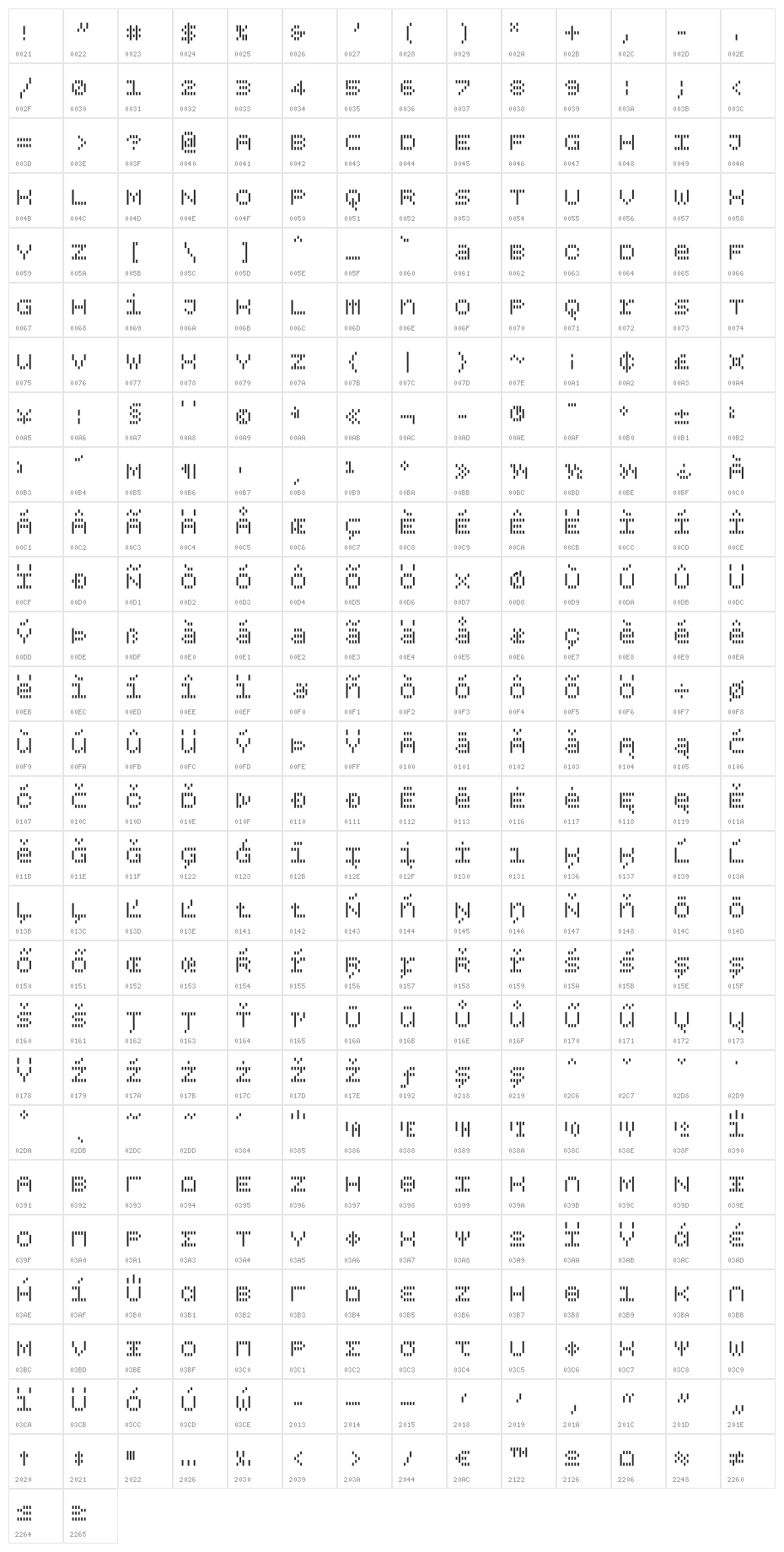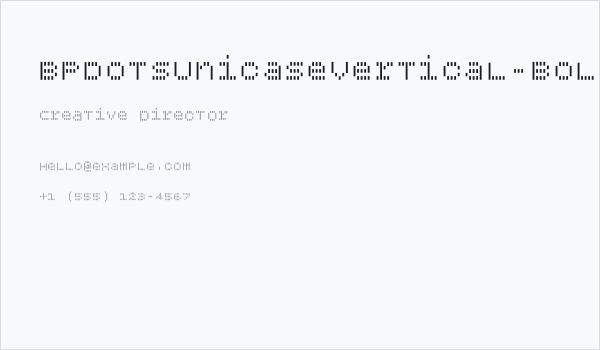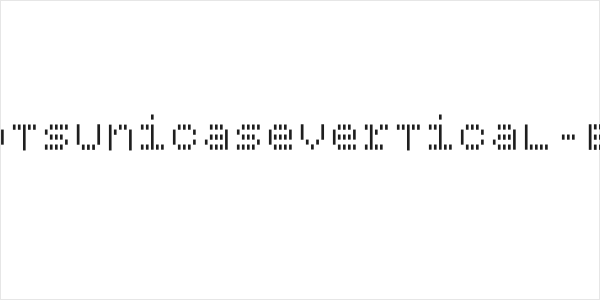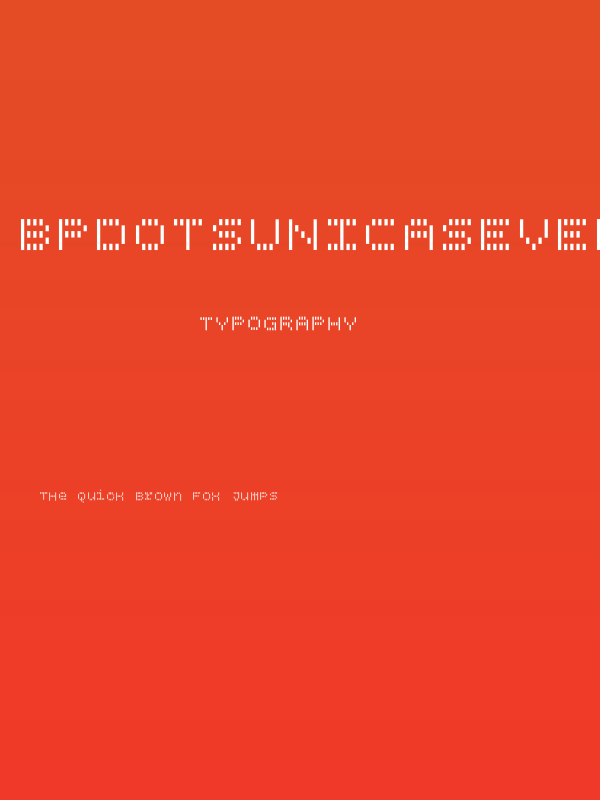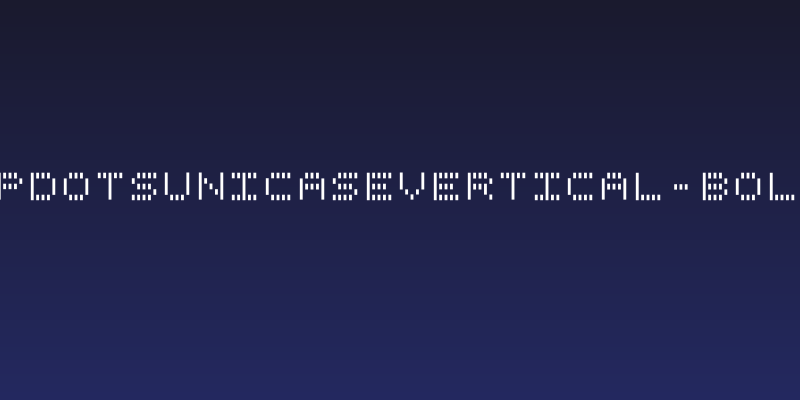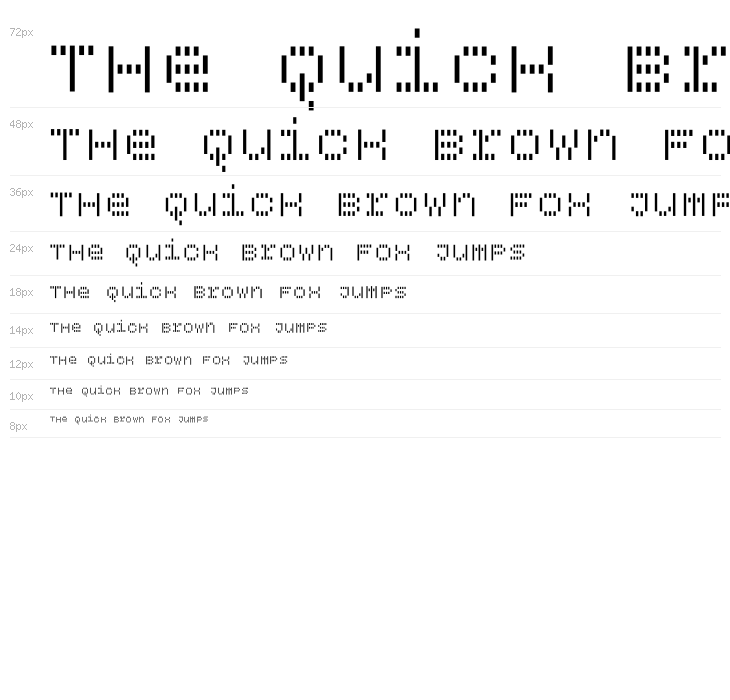
BPdotsUnicaseVertical-Bold Font
BPdotsUnicaseVertical-Bold Description
This font features a unique dot matrix style, where each character is constructed from a grid of small, evenly spaced dots. The design is highly geometric and structured, giving it a modern and digital appearance. The characters maintain a consistent height and width, creating a uniform look across all letters and numbers. This style is reminiscent of early digital displays and pixel art, making it ideal for projects that require a retro or tech-inspired aesthetic. The font is bold, ensuring high visibility and readability, even at smaller sizes. The spacing between characters is normal, providing a balanced and cohesive text flow.
| Use Case | Headlines, Logos, Digital displays |
| Proposed Projects | Ideal for digital displays, tech-themed designs, retro gaming graphics, and modern art projects. |